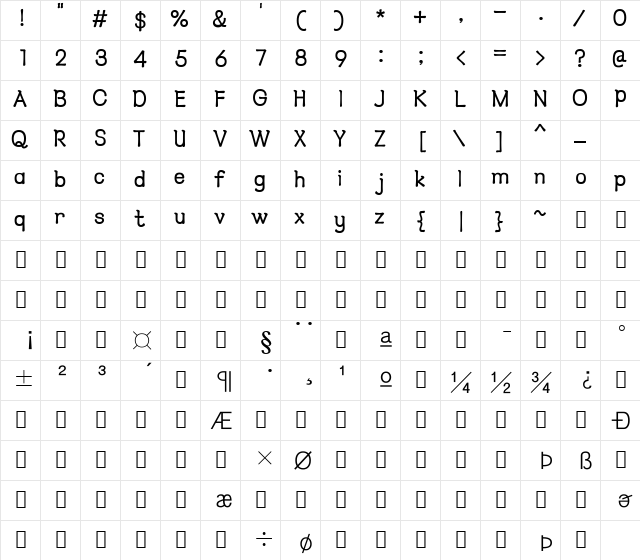
HYTaJa-Medium Regular
Design Context for HYTaJa-Medium Typeface
HYTaJa-Medium takes a measured approach to typography — its balanced proportions and neutral character make it a reliable workhorse for both digital and print work.